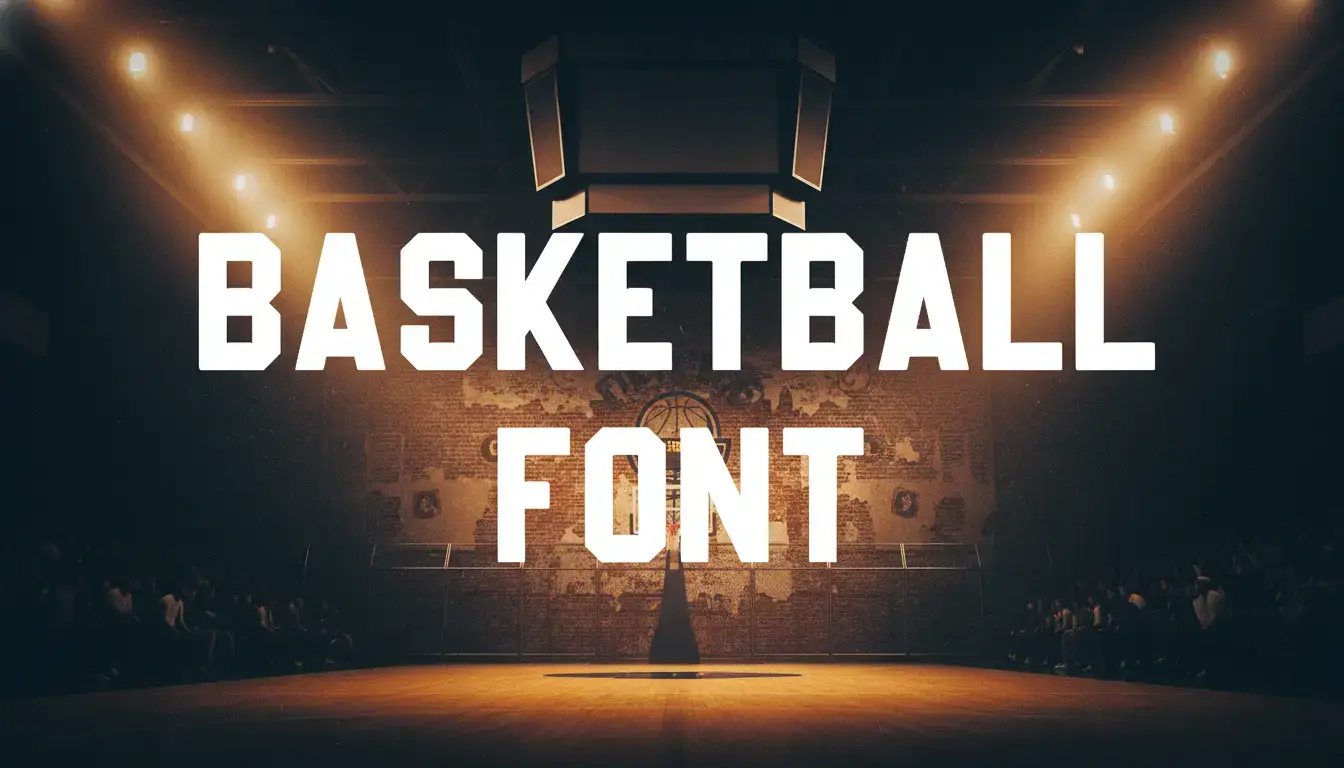
Basketball Font
Basketball is a fancy font designed by Akhmad Afandhi. It's a decorative display font with plenty of personality, made to grab attention. It's a free download, and you can try it with your own text in the preview above first.
What You Can Type With Basketball
You get every letter from A to Z in both cases and all the numbers from 0 to 9, which means Basketball can handle full sentences, dates and prices. Everyday marks like &, !, ? and @ are there too. Thanks to its accented letters, it also works for Spanish, French, German, Portuguese and Italian, not just English.
Where Basketball Works Best
Think of Basketball for posters, logos and eye-catching headlines. Use it for one standout word or headline and let simpler fonts handle the rest.
Does Basketball support accented letters?
Yes. Basketball includes the accented letters needed for Spanish, French, German, Portuguese and Italian, so it works for more than just English.